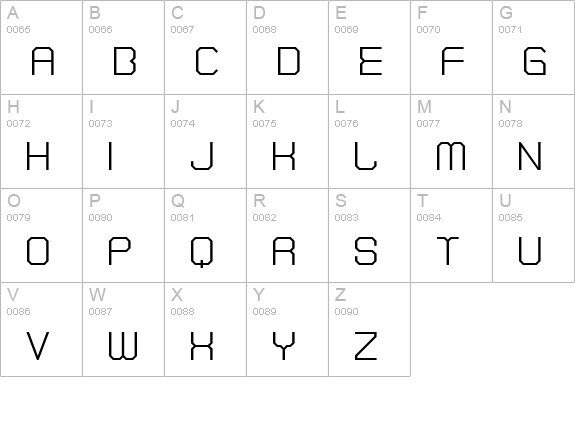
Cranberry Gin Font Details
Cranberry Gin font is a delightful and elegant typeface that exudes sophistication and charm. With its sleek lines and graceful curves, this font is perfect for adding a touch of class to any design project. Whether you're creating invitations, branding materials, or social media graphics, Cranberry Gin font is sure to make a lasting impression. The best part? Cranberry Gin font is available for free download at FontsMarket.com. You can easily access this stunning font and elevate your designs without breaking the bank. Don't miss out on the opportunity to enhance your projects with the timeless beauty of Cranberry Gin font. Download it today and let your creativity shine!